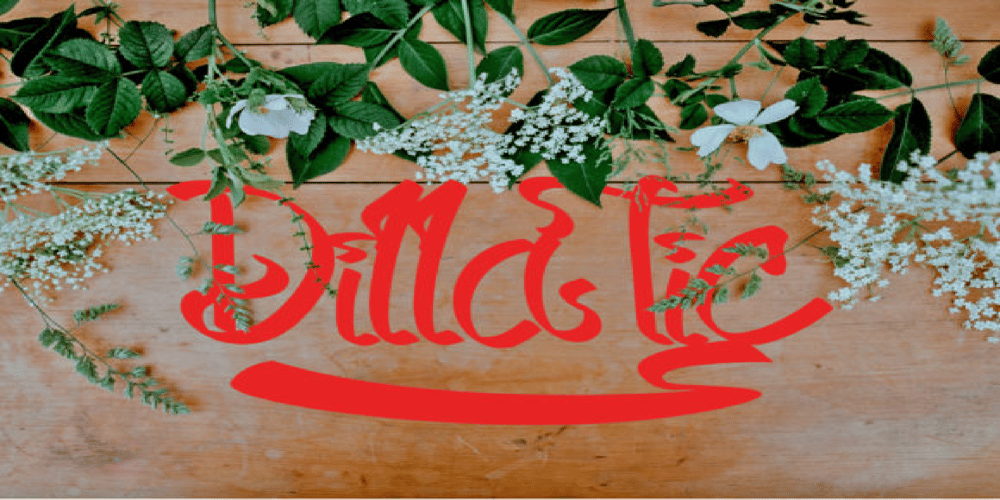
Dilla Tic Font Family was designed by Wildan Diantoro and published by NineteenWorks. Dilla Tic contains 1 styles and family package options. Elevate your design projects with our exquisite Handwriting Font Collection. Each font is meticulously crafted to infuse your creations with a touch of personality and authenticity. Whether you’re designing invitations, branding materials, or social media graphics, our diverse range of handwritten fonts offers versatility and charm. Embrace the art of expression and bring your ideas to life with our Handwriting Font Collection.